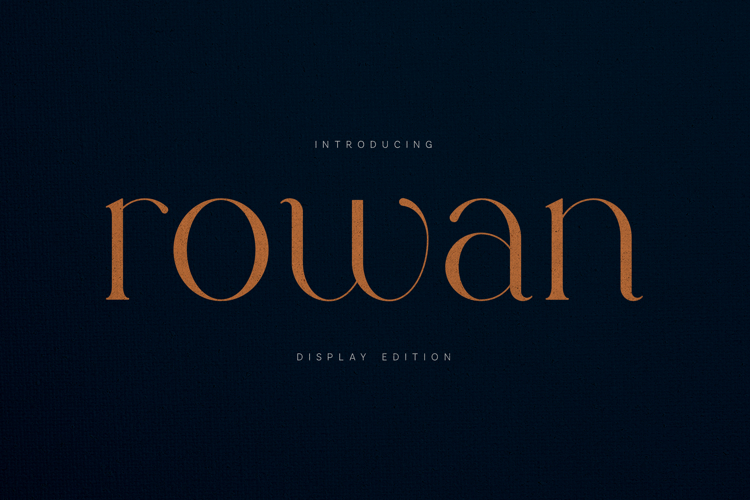
Rowan Elegant Modern Serif Display Font
Rowan is an elegant modern serif display typeface designed with refined proportions, smooth curves, and sophisticated contrast. The letterforms combine classical serif influence with a contemporary aesthetic, resulting in a typeface that feels both timeless and modern.
The design focuses on balanced shapes, soft transitions, and carefully crafted terminals that create a graceful rhythm across words and lines. Subtle curvature in the strokes gives Rowan a warm and expressive character while maintaining clarity and structure in larger typography settings.
Rowan was developed as a display-oriented serif typeface, where its refined details and elegant proportions become most visible. The letterforms feel light and sophisticated, allowing typography to communicate a sense of calm, clarity, and visual harmony.
The overall character sits between modern editorial typography and heritage-inspired serif design, making Rowan suitable for projects that require a refined and thoughtful typographic voice.
The typeface performs particularly well in:
• editorial typography
• magazine layouts
• branding identities
• luxury packaging design
• book covers
• typography-driven posters
• visual identity systems
• modern classic design compositions
Rowan includes uppercase letters, lowercase letters, numbers, punctuation, symbols, and extended multilingual language support, making it suitable for international typography work and multilingual design projects.
With its refined structure and graceful serif shapes, Rowan offers a modern display typeface that blends elegance, heritage influence, and contemporary typography into a balanced and distinctive visual voice.